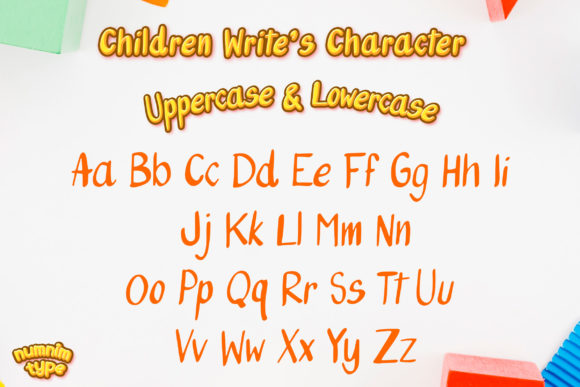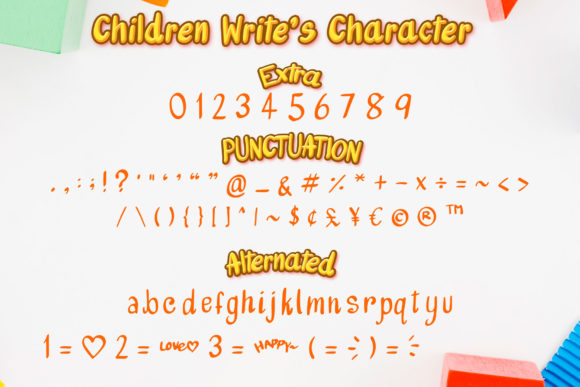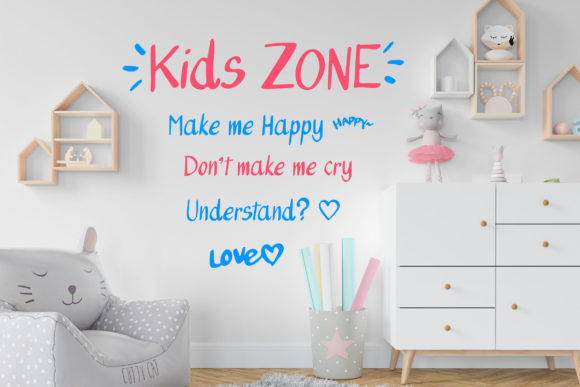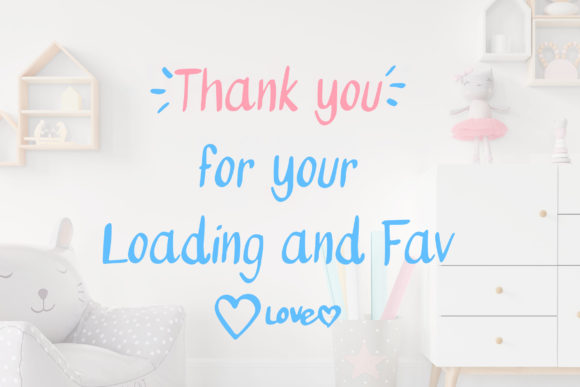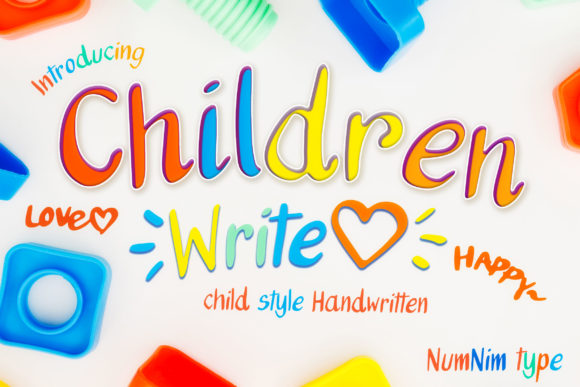
Introducing Children Write Font: A Joyful and Delightful Handwritten Font for Kids’ Designs
Are you a designer or crafter looking for a font that captures the playful and innocent spirit of childhood? Look no further than Children Write Font, a joyful and delicate handwritten font that’s perfect for kids’ themed designs. This charming font is sure to bring a smile to your face and add a touch of whimsy to your projects.
What Makes Children Write Font So Special?
Children Write Font is a carefully crafted handwritten font that’s designed to evoke the feeling of childhood wonder and excitement. Its delicate and playful strokes are reminiscent of a child’s scribbles, making it an ideal choice for designs that require a personal and youthful touch.
One of the standout features of Children Write Font is its unique and irregular letterforms, which give it a distinctly handmade feel. This font is perfect for designers who want to add a touch of personality and charm to their work, whether it’s for a kids’ party invitation, a children’s book, or a nursery decor project.
Perfect for Kids’ Themed Designs
Children Write Font is specifically designed with kids’ themed designs in mind. Its playful and cheerful vibe makes it an excellent choice for projects that require a fun and youthful aesthetic. Whether you’re designing a logo, a poster, or a digital product, this font is sure to delight kids and adults alike.
When paired with bright colors and playful graphics, Children Write Font really comes alive. Imagine using this font to create a colorful and eye-catching kids’ party invitation, complete with balloons, streamers, and a big banner with the party’s theme. The result is sure to be a design that’s both fun and memorable.
Why Designers and Crafters Love Children Write Font
So, why do designers and crafters love Children Write Font? For starters, its unique and playful design makes it a great way to add some personality to your work. Unlike more traditional fonts, Children Write Font is sure to stand out and grab attention.
Another reason designers and crafters love this font is its versatility. Children Write Font can be used for a wide range of projects, from digital products to print materials. Whether you’re designing a kids’ activity book, a nursery rhyme poster, or a set of custom party favors, this font is sure to be a great fit.
Tips for Using Children Write Font
Here are a few tips for using Children Write Font in your designs:
• Pair it with bright colors: Children Write Font really comes alive when paired with bright and cheerful colors. Try using it with colors like pink, blue, yellow, and green to create a fun and playful design.
• Use it for headings and titles: Children Write Font is perfect for headings and titles, where its playful and decorative strokes can really shine.
• Experiment with different sizes: Children Write Font looks great in a variety of sizes, from large and bold to small and delicate. Experiment with different sizes to find the one that works best for your design.
In conclusion, Children Write Font is a joyful and delicate handwritten font that’s perfect for kids’ themed designs. Its playful and cheerful vibe makes it an excellent choice for designers and crafters who want to add a touch of personality and charm to their work. Whether you’re designing a kids’ party invitation, a children’s book, or a nursery decor project, Children Write Font is sure to delight kids and adults alike.